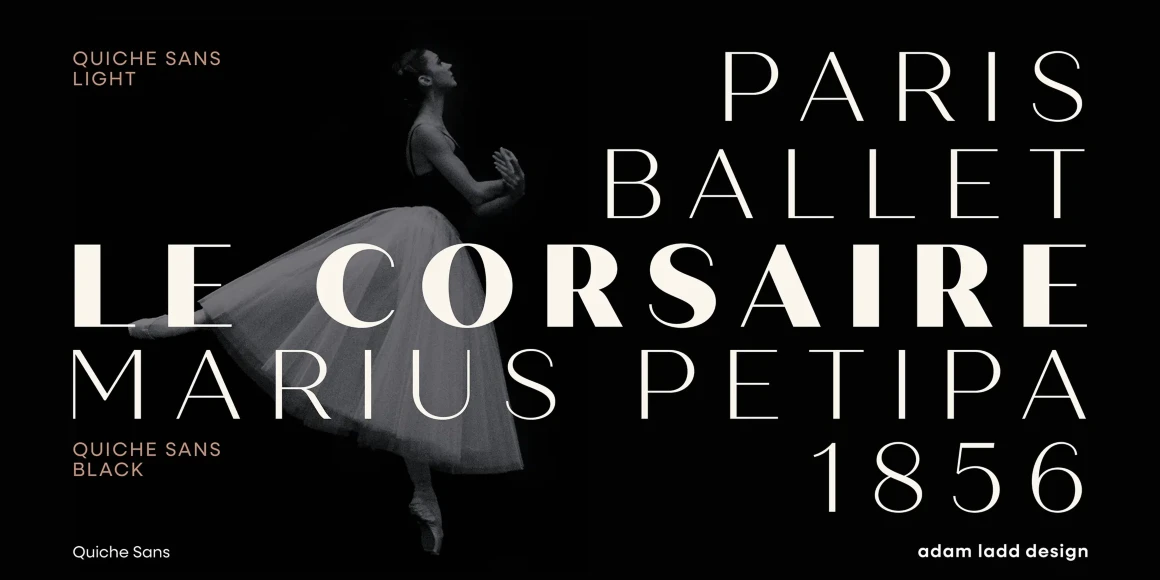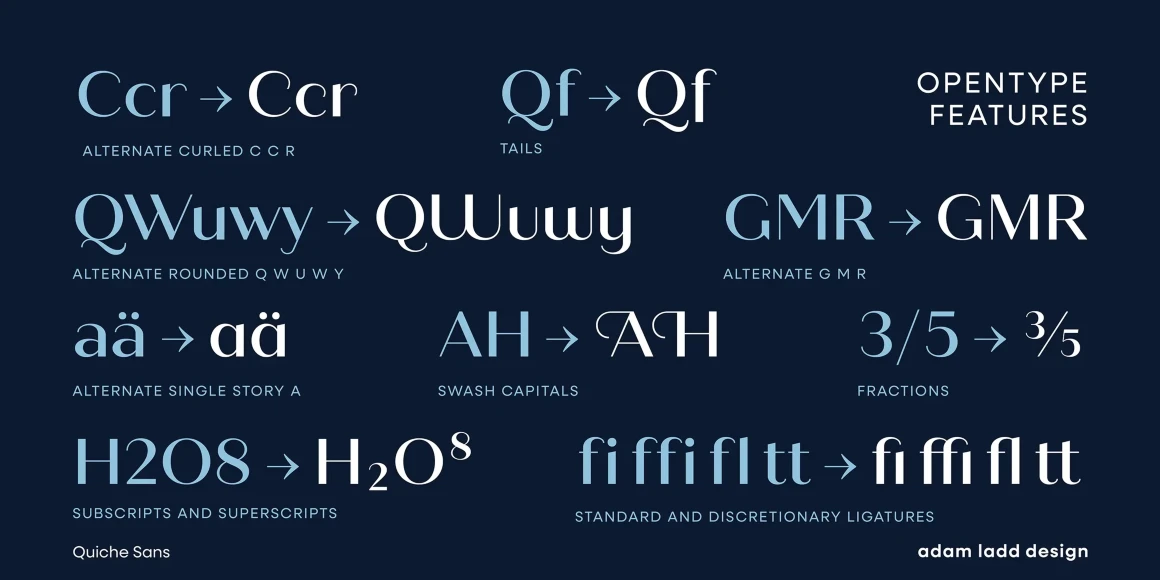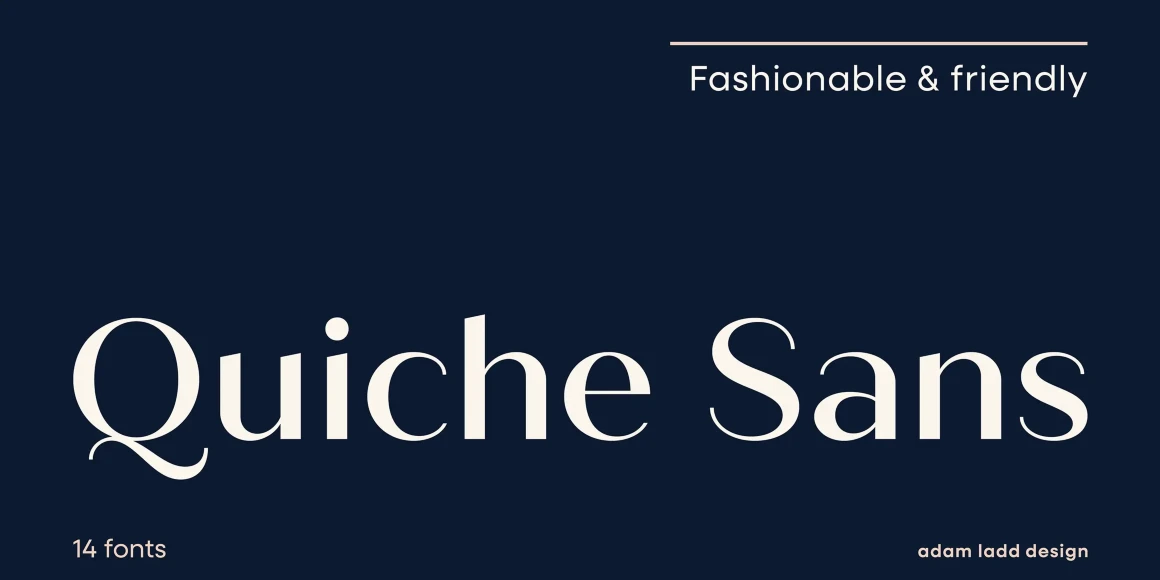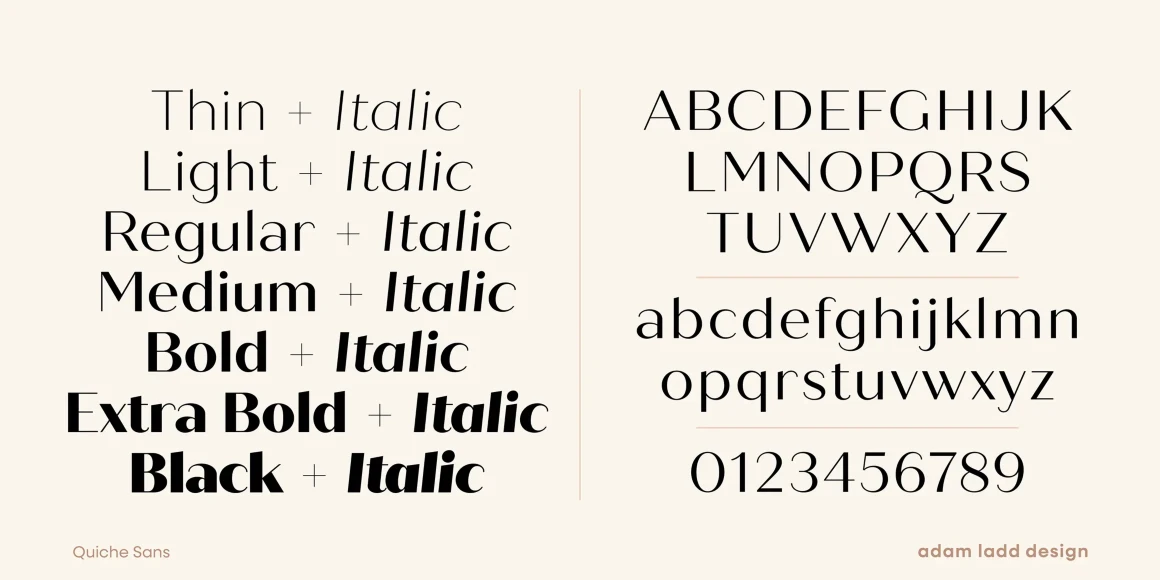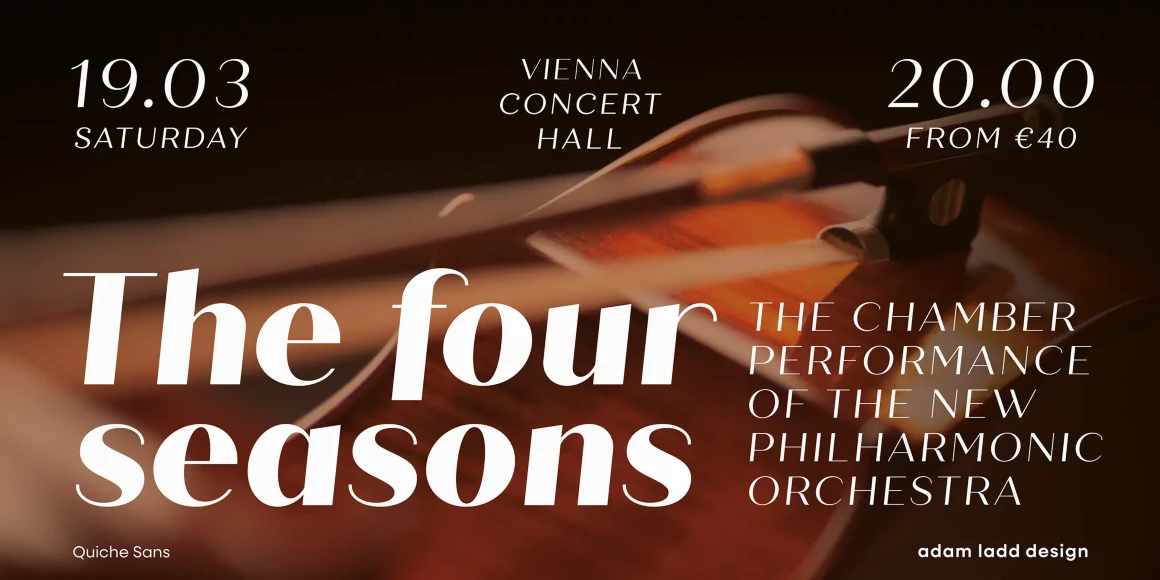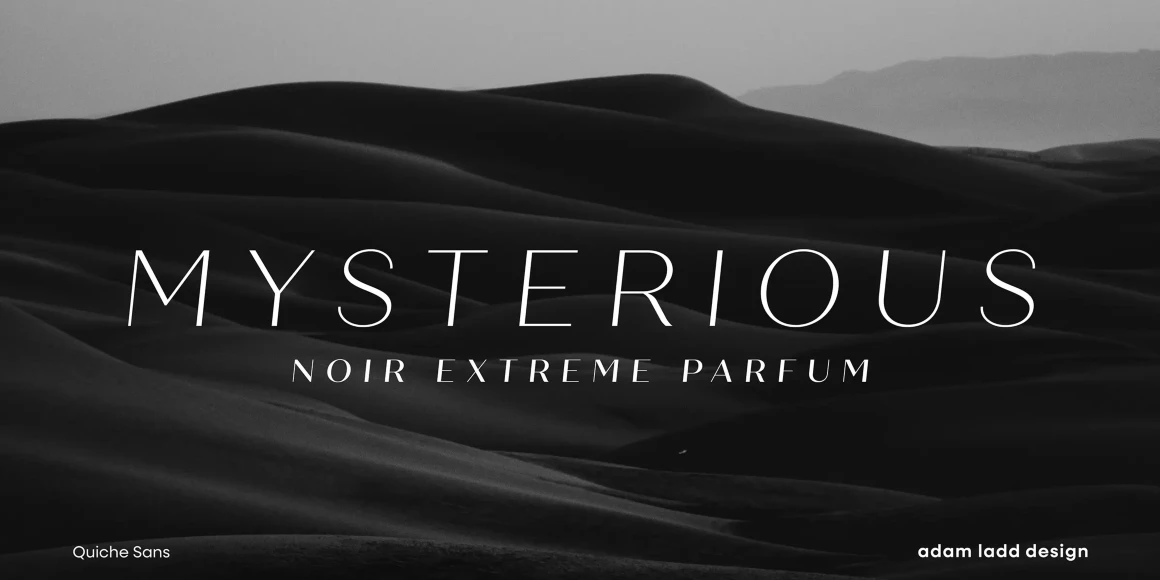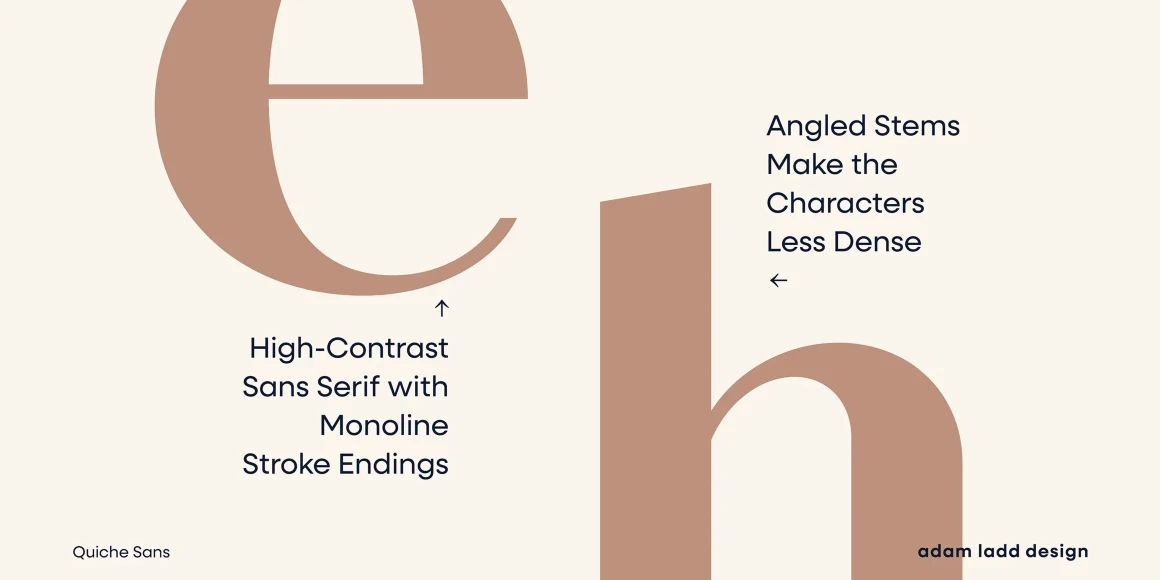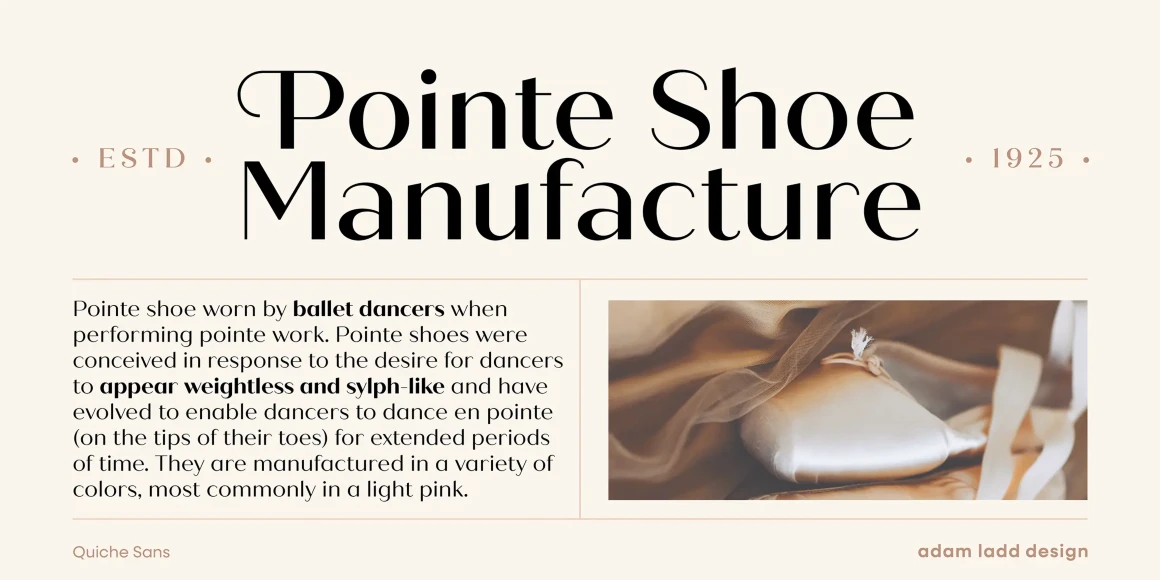
Quiche Sans
By Adam Ladd
Quiche Sans is a high-contrast sans with monolinear stroke endings, angled stems, and geometric proportions. A sibling to Quiche, the design is also influenced by the Didone genre, characterized by its elegance and extreme contrast. But with the serifs removed, it becomes uniquely modern. Quiche Sans is ready for branding, advertising, magazines, products, packaging, labels, invitations, stationery, fashion, and more. Use it with Quiche to expand the versatility even further!